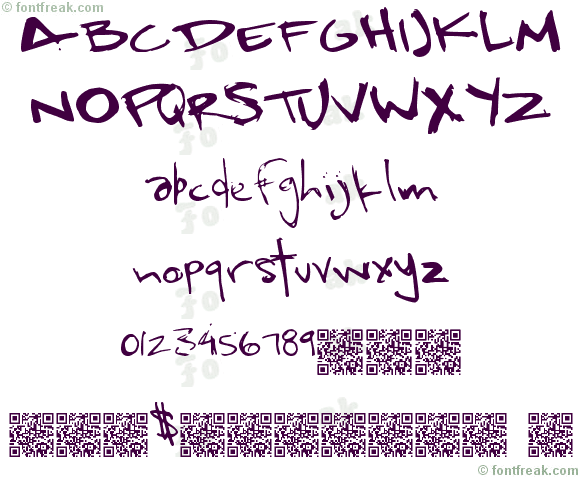
RapidSloths
RapidSloths by XEROGRAPHER FONTS is a unique display typeface that successfully combines playful elements with a distinct artistic flair. The font features a hand-drawn aesthetic characterized by irregular strokes and varying weights, which adds a charming, informal touch to any design. This style lends itself well to creative projects that require a personal and approachable feel. The letters exhibit a moderate contrast in thickness, enhancing their visual interest while maintaining legibility. The spacing is thoughtfully designed to ensure that each character breathes, making it suitable for both headlines and body text.
This font shines in a variety of use cases, particularly in projects that aim to convey a sense of fun and creativity. It is an excellent choice for wedding invitations, where the unique character can set a whimsical tone. Additionally, RapidSloths works well for children’s book covers, adding a playful vibe that appeals to young readers. Restaurant menus can also benefit from this font, as it can evoke a casual dining atmosphere. Moreover, it is perfect for promotional materials for creative workshops or art events, making it an ideal fit for small business owners looking to attract a specific audience.
Targeted towards graphic designers, content creators, and small business entrepreneurs, RapidSloths offers versatility and originality. The font captures attention without overwhelming the viewer, making it an engaging choice for various applications.